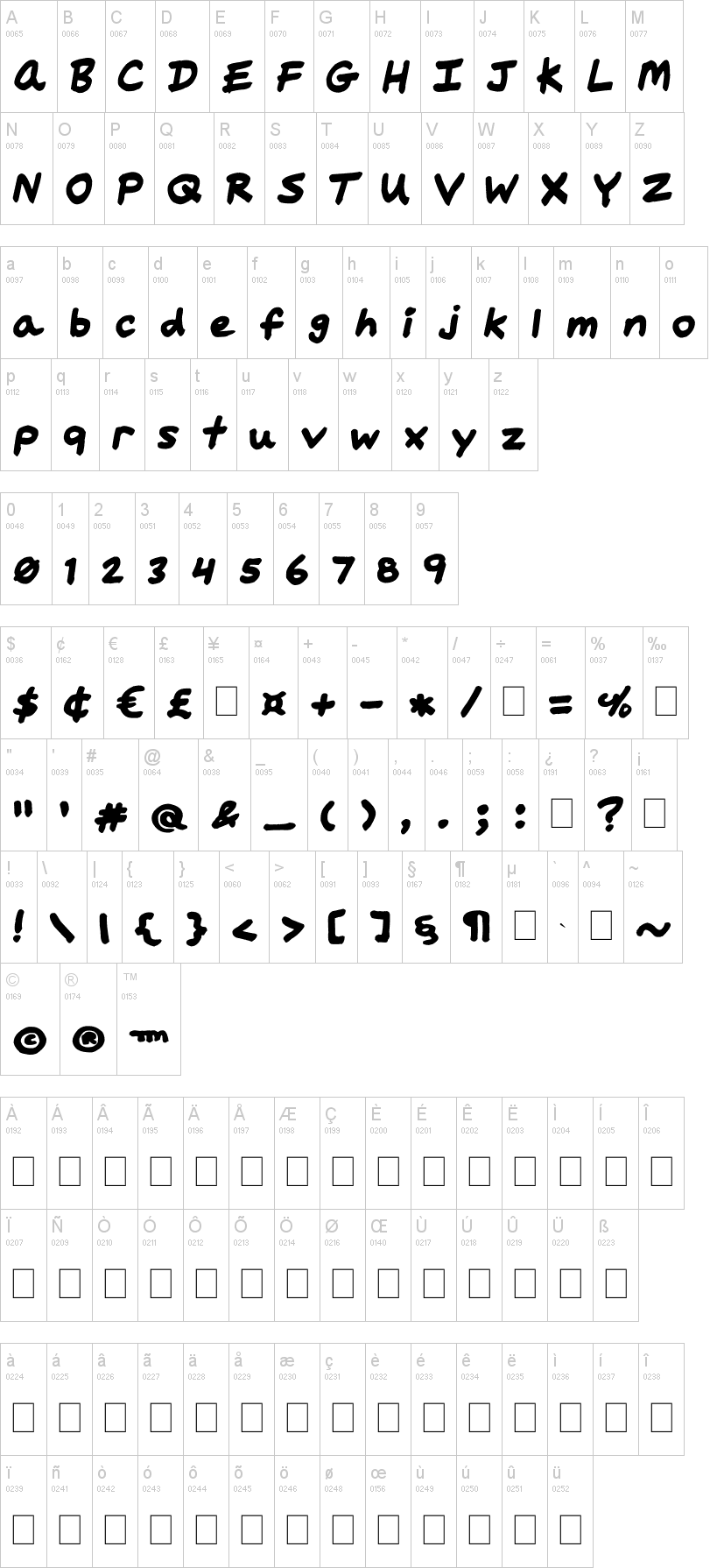
Note of the authorI've always liked the simplicity of marker or "sign painter" brush scripts so I decided to create my own. I used one of those fat, chisel tipped black markers and just scribbled away making the letters, numerals and special characters. Enjoy! And remember, if you can, please send me a donation to keep the keepin' on.